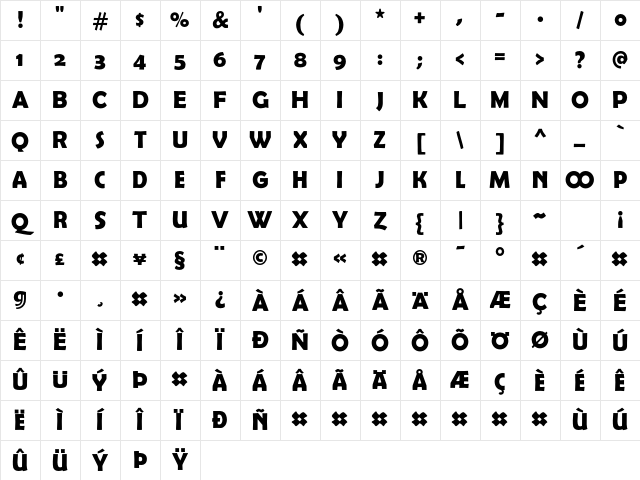
Berlinsans DemiExpert Free Font
Berlinsans DemiExpert
Style: DemiExpert
Complete Berlinsans DemiExpert glyph index. Displaying only characters natively supported by Berlinsans DemiExpert font.
Design Context for Berlinsans
Berlinsans is a composed and adaptable typeface that performs quietly and consistently across a wide range of design contexts.